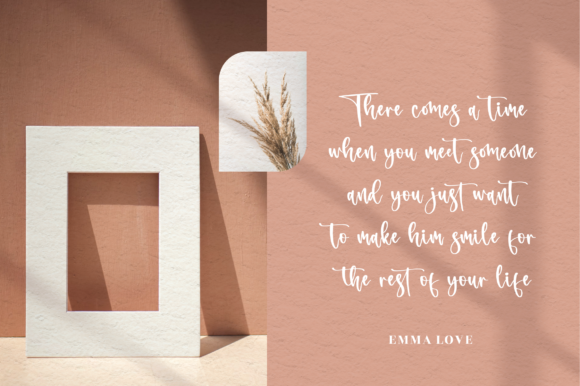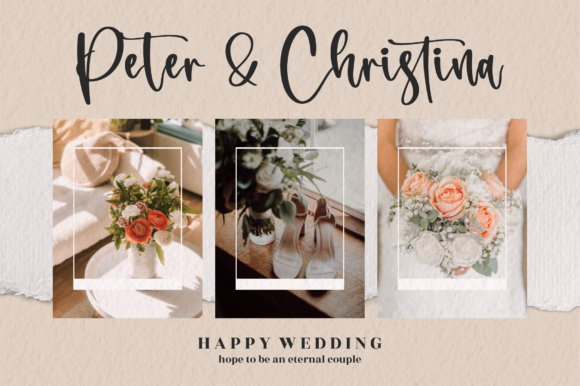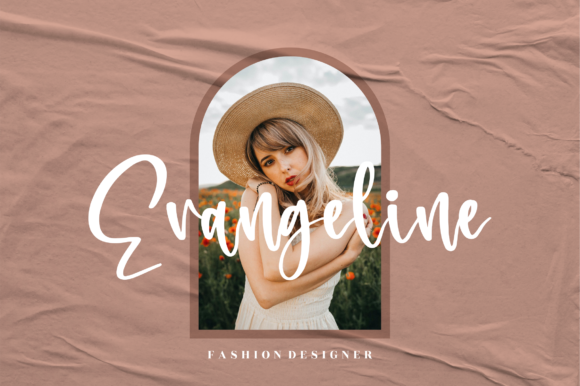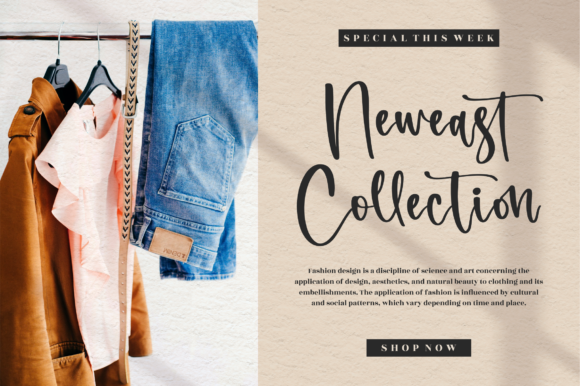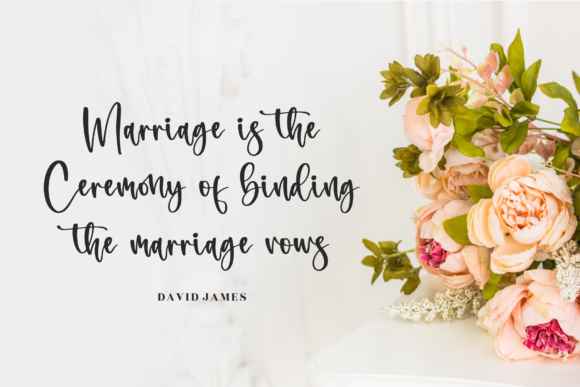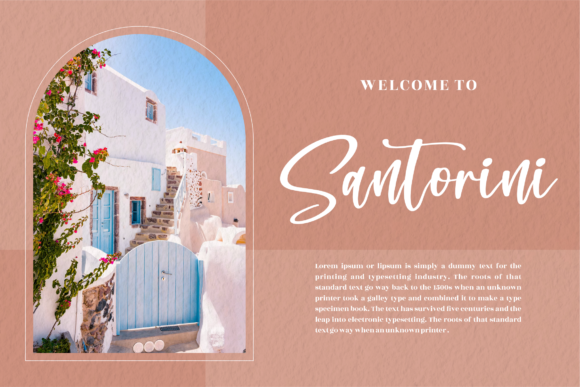
Introducing Bonistha Daily Font: Elevate Your Designs with Elegant Script
In the world of design, typography plays a crucial role in conveying messages, evoking emotions, and creating a lasting impression. For designers, crafters, and DIY enthusiasts, finding the perfect font can be a daunting task. However, if you’re looking for a beautiful script font to elevate your projects, look no further than Bonistha Daily Font. In this article, we’ll explore the features, benefits, and uses of Bonistha Daily Font, and why it’s a must-have for any designer or crafter.
What is Bonistha Daily Font?
Bonistha Daily Font is a stunning script font designed to add a touch of elegance and sophistication to any project. With its flowing curves, intricate details, and classic feel, this font is perfect for creating beautiful and eye-catching designs. Whether you’re working on a logo, branding project, homeware design, or any other creative endeavor, Bonistha Daily Font is sure to impress.
Key Features of Bonistha Daily Font
- Beautiful Script Style: Bonistha Daily Font boasts a gorgeous script style that’s perfect for creating elegant and refined designs.
- High-Quality Design: The font is meticulously crafted with attention to detail, ensuring a high-quality design that’s perfect for printing and digital use.
- Versatile: Bonistha Daily Font is suitable for a wide range of projects, from logos and branding to homeware designs, product packaging, and more.
Uses of Bonistha Daily Font
Bonistha Daily Font is an incredibly versatile font that can be used for a variety of projects, including:
- Logos and Branding: Create a stunning logo or brand identity with Bonistha Daily Font.
- Homeware Designs: Add a touch of elegance to your homeware designs, such as stationery, wall art, and decorative items.
- Product Packaging: Elevate your product packaging with beautiful and eye-catching designs.
- Mugs and Apparel: Create stunning mugs, t-shirts, and other apparel with Bonistha Daily Font.
- Posters and Quotes: Design beautiful posters and quotes that showcase your message in style.
- Invitations and Greeting Cards: Create elegant invitations and greeting cards for special occasions.
Benefits of Using Bonistha Daily Font
By using Bonistha Daily Font, designers and crafters can enjoy a range of benefits, including:
- Unique and Professional Look: Bonistha Daily Font adds a touch of sophistication and elegance to any design, making it stand out from the crowd.
Tips for Using Bonistha Daily Font
To get the most out of Bonistha Daily Font, here are some tips to keep in mind:
- Experiment with Colors: Try pairing Bonistha Daily Font with different colors to create a unique and eye-catching design.
- Play with Sizes: Experiment with different font sizes to add visual interest and hierarchy to your design.
- Mix and Match: Combine Bonistha Daily Font with other fonts to create a stunning and unique design.
| Font Name | Bonistha Daily Font |
| Author | Letternity |
In conclusion, Bonistha Daily Font is a beautiful script font that’s perfect for designers, crafters, and DIY enthusiasts. With its elegant style, high-quality design, and versatility, this font is sure to elevate your projects and add a touch of sophistication. Whether you’re working on a logo, branding project, or homeware design, Bonistha Daily Font is a must-have font that’s sure to impress.